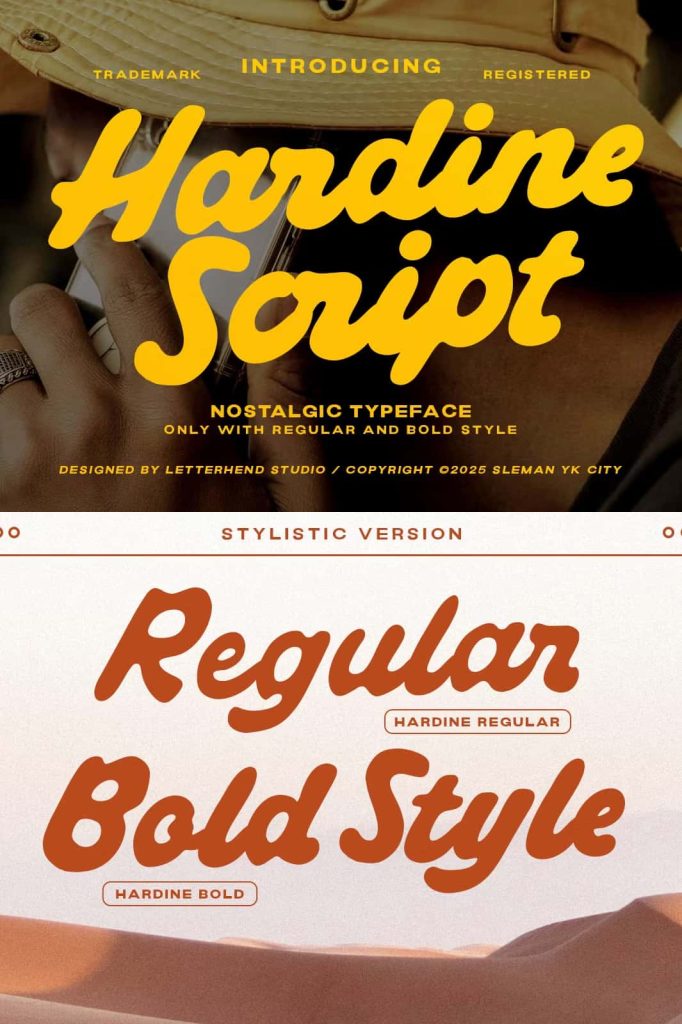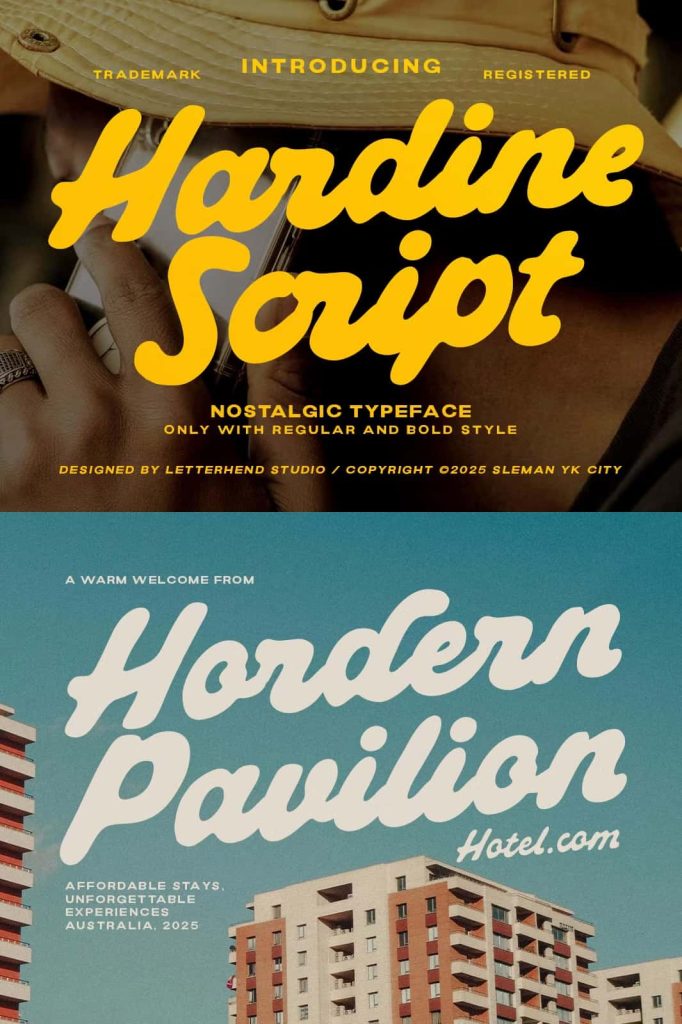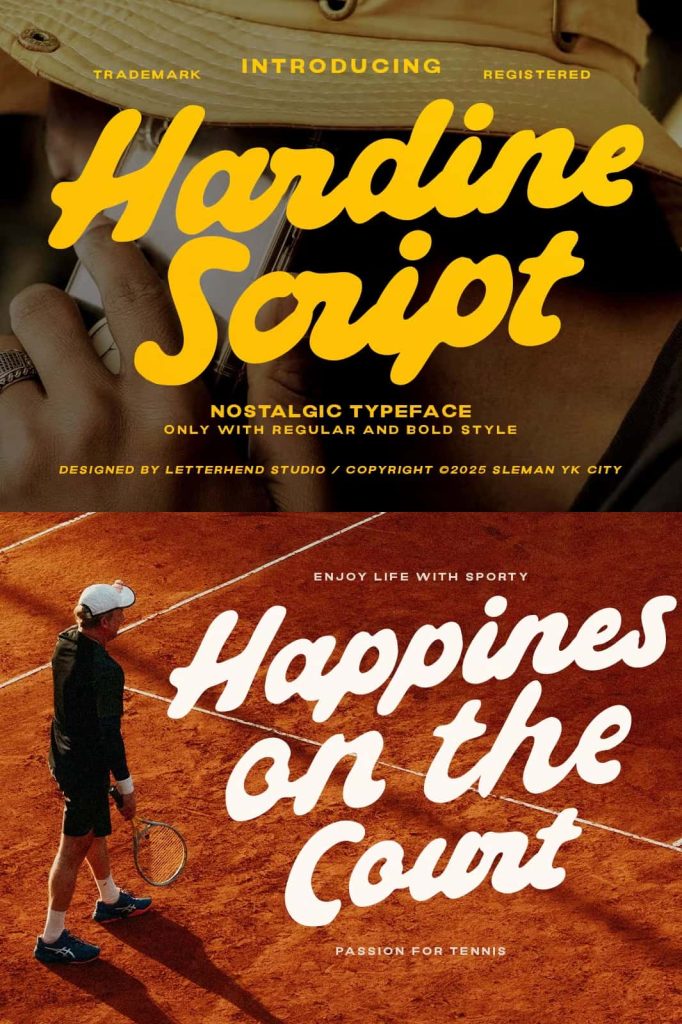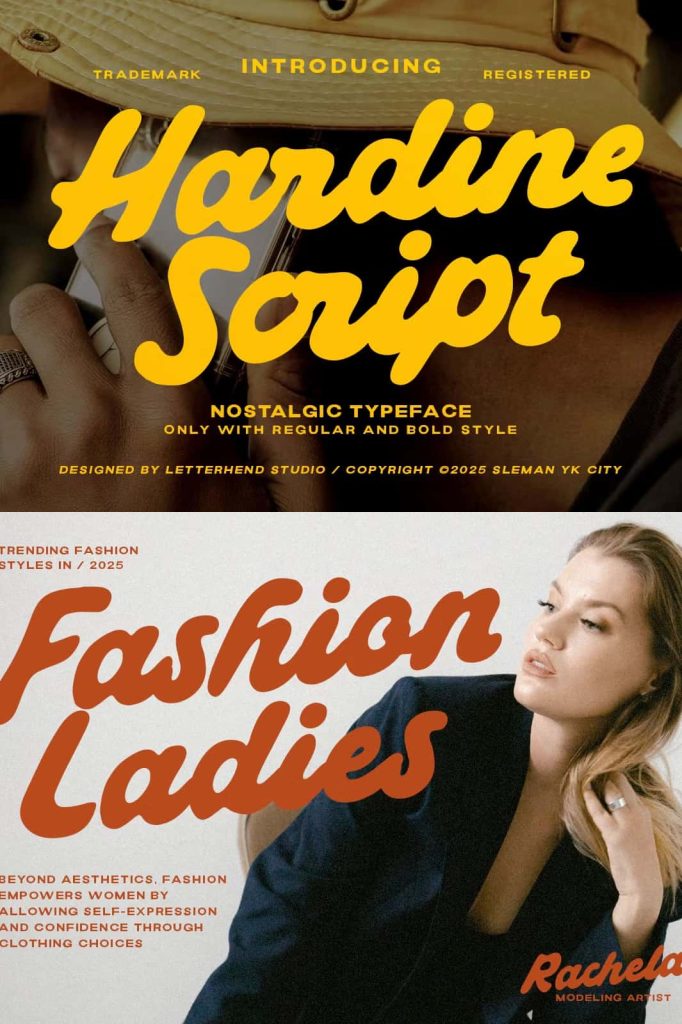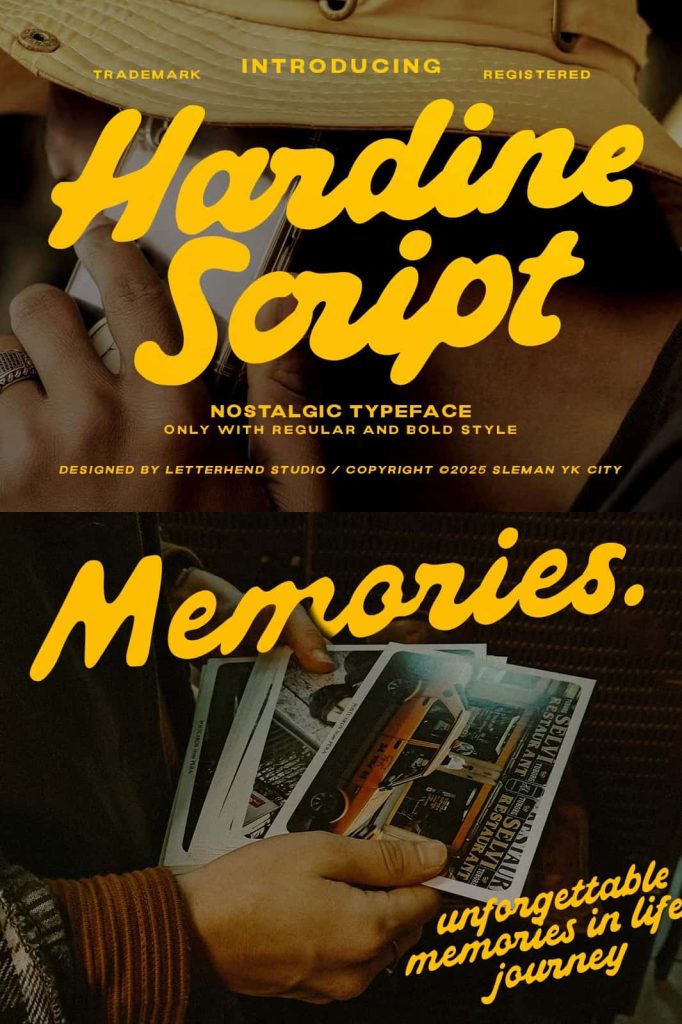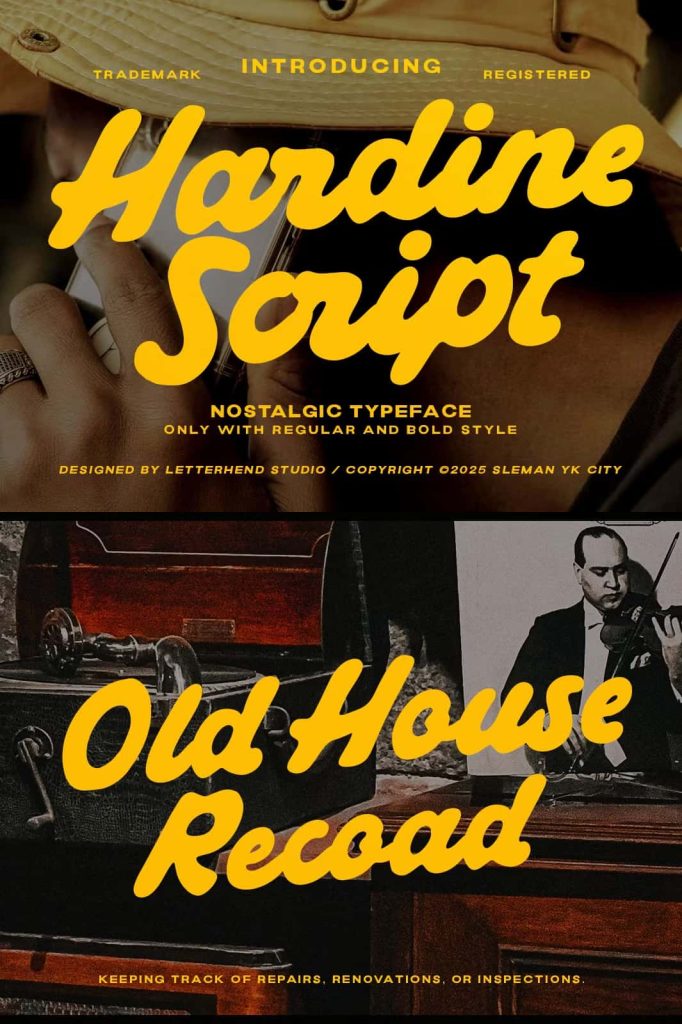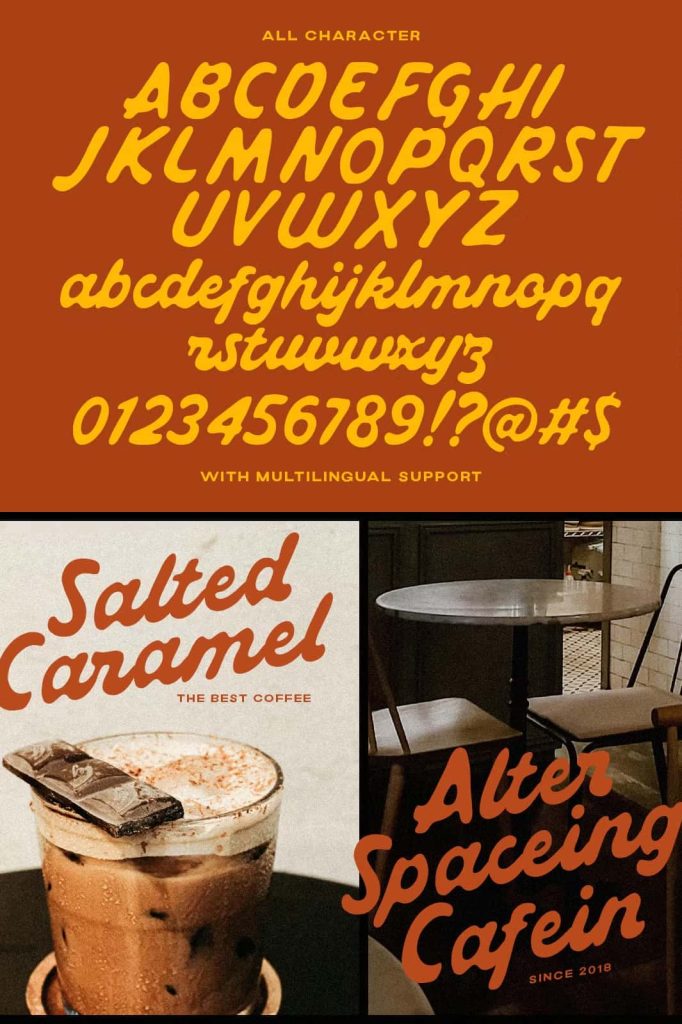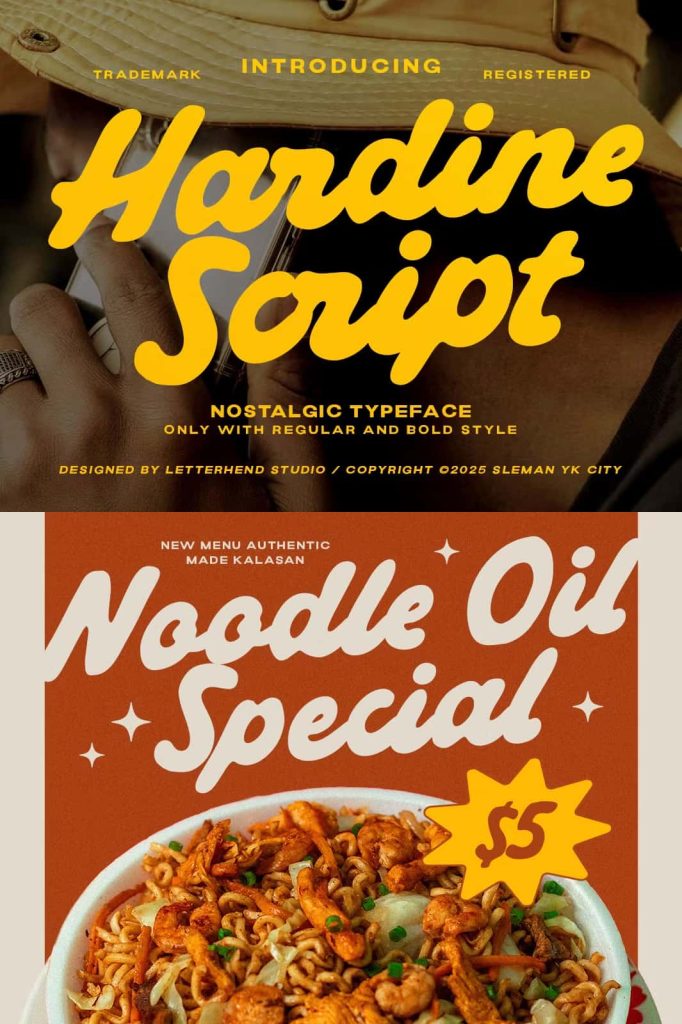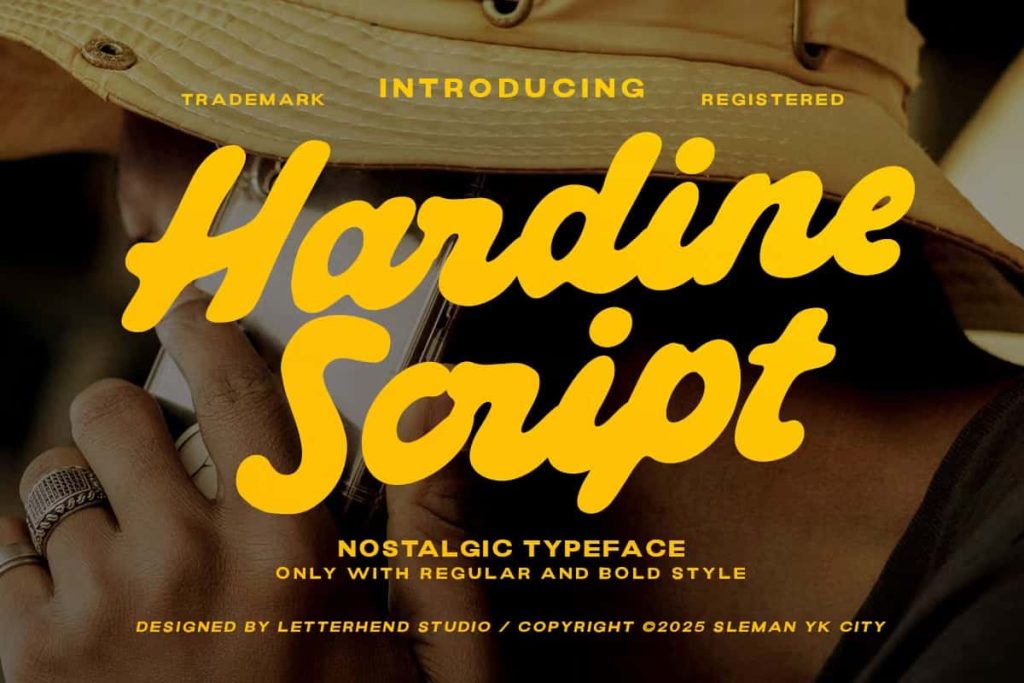
Hardine Nostalgic Script
Hardine Script: A Bold Vintage Script Font with Nostalgic Character
Hardine Script is a bold and expressive script typeface designed to deliver strong visual impact while capturing the warmth of vintage lettering. With its confident strokes and smooth flowing curves, this font brings a handcrafted feeling that feels authentic, energetic, and full of personality. Hardine Script blends nostalgic charm with modern versatility, making it a reliable choice for designers who want typography that feels both timeless and contemporary.
This typeface is built for display use, where character and confidence matter most. Whether applied to branding, posters, or apparel designs, Hardine Script immediately attracts attention and sets a distinctive tone.
Inspired by Vintage Lettering with a Modern Touch
The design of Hardine Script draws inspiration from classic hand-painted signs, retro advertisements, and traditional script lettering. These influences are reflected in the bold letterforms and fluid connections between characters. Instead of replicating historical styles exactly, Hardine Script reinterprets vintage aesthetics through a modern lens.
This thoughtful approach allows the font to feel nostalgic without appearing outdated. Designers can evoke a sense of history and craftsmanship while still achieving a clean and polished result suitable for modern branding and visual communication.
Smooth Curves and Strong Letterforms
One of the defining characteristics of Hardine Script is the balance between smooth curves and strong structural forms. The flowing strokes create a sense of motion and energy, while the bold weight ensures clarity and readability. This combination gives the font a dynamic presence that works especially well in large-scale applications.
Perfect for Branding and Visual Identity
Hardine Script excels in branding and logo design where personality and confidence are essential. Its expressive nature helps brands stand out and communicate authenticity. The font works particularly well for lifestyle brands, food and beverage labels, creative studios, and businesses that want to convey warmth and individuality.
When used as a logo or headline font, Hardine Script creates a memorable visual signature. It pairs effectively with simple sans serif or serif fonts, allowing designers to build cohesive brand systems that balance expressiveness with structure.
Ideal for Posters, Apparel, and Retro Designs
Posters and promotional graphics benefit greatly from the bold and energetic style of Hardine Script. The font commands attention and delivers messages with confidence, making it ideal for event posters, advertisements, and campaign visuals.
In apparel design, Hardine Script shines on t-shirts, hoodies, caps, and merchandise. Its handcrafted feel and vintage influence resonate strongly in fashion and streetwear contexts, where authenticity and individuality play a key role. The font enhances retro-inspired designs by reinforcing themes of nostalgia, creativity, and bold self-expression.
A Handcrafted Feel with Expressive Energy
The handcrafted quality of Hardine Script gives designs a human touch that feels approachable and genuine. Each letter flows naturally into the next, creating a sense of rhythm and movement. This expressive energy helps typography feel alive and engaging, rather than static or mechanical.
A Versatile Script Font for Creative Projects
Hardine Script offers impressive versatility across both print and digital media. Designers can use it for packaging, social media graphics, website headers, signage, and more. Its bold construction ensures strong visibility, while its smooth curves maintain elegance and balance.
The font adapts easily to a variety of creative directions, from bold retro compositions to refined modern layouts. This flexibility makes Hardine Script a valuable addition to any designer’s type collection.
Typography with Confidence and Personality
Hardine Script is designed for projects that demand confidence, character, and emotional impact. Its nostalgic roots, combined with modern usability, allow designers to tell stories through typography in a powerful and engaging way.
If you are searching for a vintage script font that delivers bold expression, handcrafted warmth, and versatile performance, Hardine Script is an excellent choice. It empowers creative projects with personality and ensures your designs stand out with confidence.